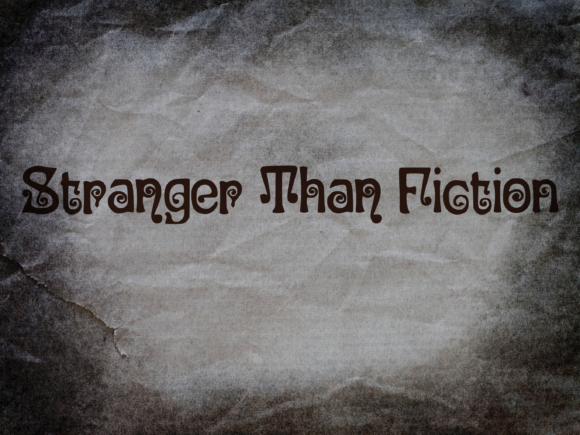
Welcome to the world of typographical enchantment, where the Stranger Than Fiction font reigns supreme. This captivating serif font, crafted by the ingenious minds at The Tenacious Type Studio, is an artistic masterpiece that will transform your digital creations into visual spectacles.
Stranger Than Fiction is a whimsical wonderland of playful curves and tactile textures that evoke a sense of childlike wonder and carefree exploration. Its unique character dances across your screen, leaving a trail of joy and imagination in its wake. This font is the perfect companion for designs that seek to capture the essence of lightheartedness, creativity, and unbridled imagination.
Picture your designs adorned with the Stranger Than Fiction font, captivating your audience with its playful charm. Cartoon-related designs, children's games, inspiring quotes, bold titles, captivating brand names, eye-catching book covers, and vibrant posters come alive with a newfound sense of whimsy and engagement. Every letter, a stroke of genius, dances across the digital canvas, inviting your viewers to embark on a delightful visual journey.
Whether you're a seasoned graphic designer, a passionate artist, or simply someone looking to add a touch of magic to their digital creations, Stranger Than Fiction is the ultimate choice. Its versatility knows no bounds, seamlessly adapting to a myriad of design styles and themes. Unleash your creativity and let your imagination run wild as you witness the transformative power of this remarkable font.
With Stranger Than Fiction at your fingertips, you hold the key to unlocking a world of typographic enchantment. Let your designs shine with the brilliance of this whimsical font, capturing the hearts and minds of your audience with its playful spirit. Embrace the joy of artistic expression and turn your digital creations into masterpieces that spark conversations and leave an unforgettable impression.